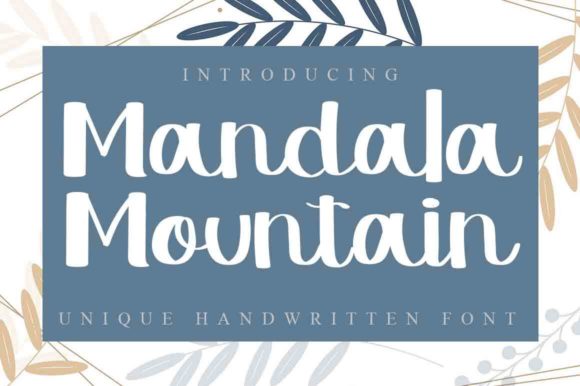
In a realm of digital artistry, Mandala Mountain Font emerges as a beacon of elegance and creativity. This handcrafted masterpiece, conjured by the skilled hands of Eddygoodboy, invites you on a journey through the world of fashion design.
With its sweeping strokes and graceful curves, Mandala Mountain Font exudes a timeless charm that effortlessly captivates the eye. Its intricate details evoke a sense of wonder and intrigue, leaving a lasting impression on all who behold it.
Step into the realm of fashion design, where Mandala Mountain Font reigns supreme. Allow your imagination to soar as you explore the endless possibilities that lie within this font's enchanting embrace. From ethereal wedding invitations to heartfelt thank-you cards, Mandala Mountain Font is your trusted companion in creating designs that speak volumes.
Envision the elegance of a wedding adorned with the splendor of Mandala Mountain Font. Each invitation, meticulously crafted, becomes a work of art, hinting at the magic that awaits within. With every stroke of the pen, your words take on a new life, imbued with the essence of sophistication and grace.
Beyond the realm of weddings, Mandala Mountain Font seamlessly adapts to a symphony of creative endeavors. Greeting cards, logos, and countless other projects are elevated to new heights as this font weaves its magic. Its versatility knows no bounds, allowing you to effortlessly capture the essence of your brand or express your personal style.
Unleash the power of Mandala Mountain Font today and embark on a creative journey like no other. Let your designs blossom with an air of elegance and charm that will leave an enduring legacy. Embrace the beauty of handwritten artistry and transform your vision into a reality.